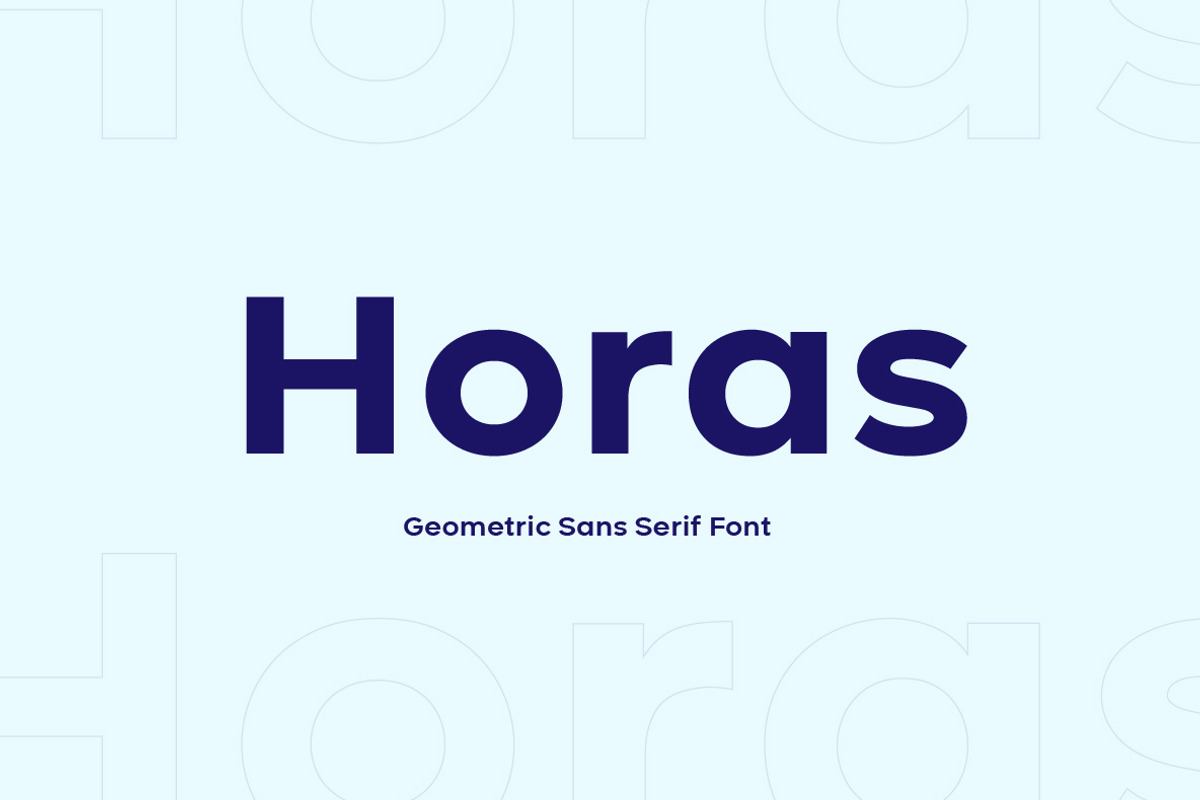
Horas Geometric Sans Serif Font Free Download is a clean and modern typeface designed with geometric precision and minimalist flair. With its sleek lines, balanced proportions, and versatile style, Horas is perfect for branding, web design, corporate presentations, editorial layouts, and tech-inspired visuals.
This font shines in both headlines and body text, offering excellent readability without sacrificing personality. Its contemporary aesthetic makes it a great fit for startups, portfolios, product packaging, and user interfaces that aim for clarity and sophistication.